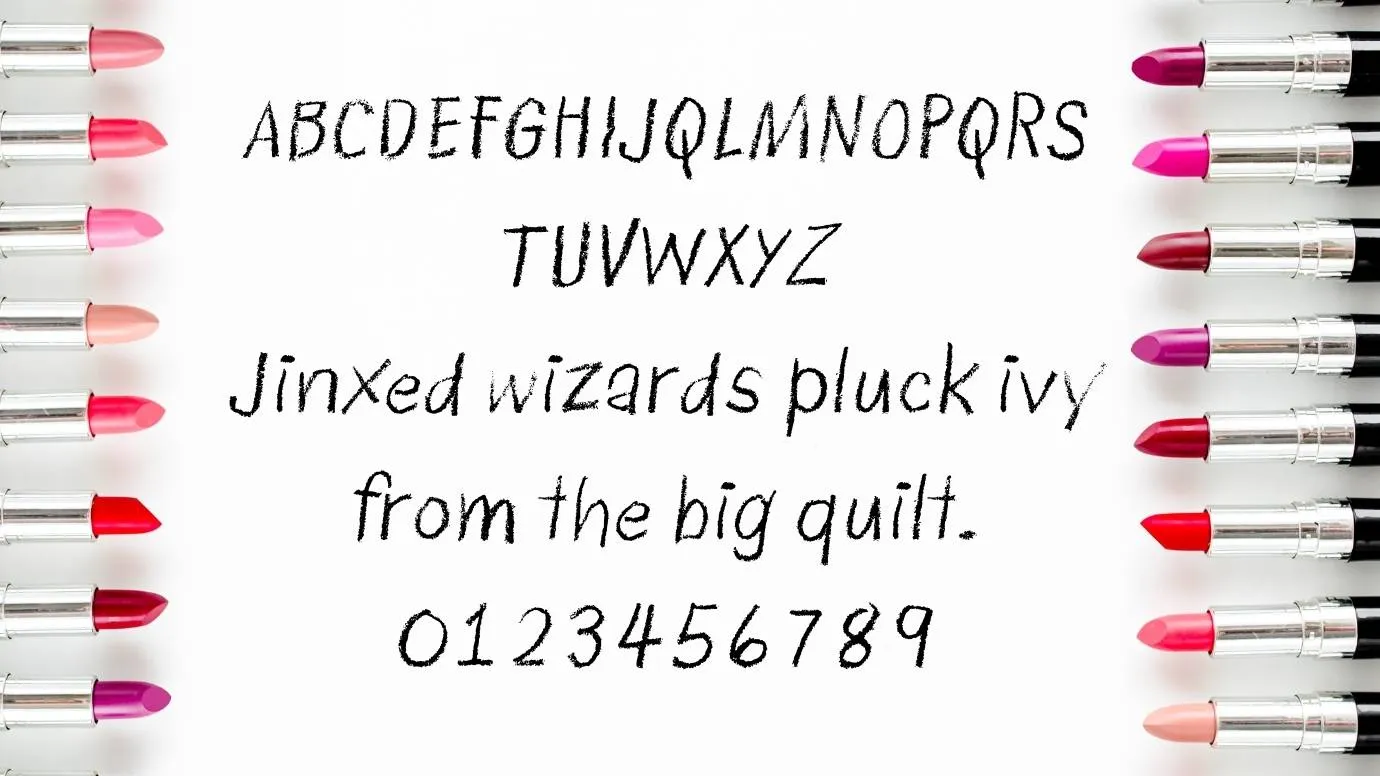
Introducing you to a very popular handwritten script typeface widely known as the Lipstick font. This amazing font was used in the logo of the very famous lipstick brands and cosmetics products. It is a very popular typeface and is known internationally. There are a lot of other fonts which were used in the logos of the cosmetics products but they cannot beat the class of this typeface. We will discuss the latest very amazing and prominent typeface. It was designed by a famous designer and expert of fonts Suthi Srisopha. The font family has only one style including the uppercase and lowercase letters and numbers.
Creator of Lipstick Font
This beautiful and amazing font is designed by Suthi Srisopha. And it was released by the famous foundry of fonts Typhoon Type.
This font comes in one regular style and advanced features as well as 80 unique glyphs and 266 interesting characters including Uppercase, Numerals.
Which is the best typeface to use with the lipstick font as a pair?
You can use Youth Font as a pair with the Lipstick font it will be surely a great combination.
Who created Lipstick font?
This beautiful and amazing font is designed by Suthi Srisopha. And it was released by the famous foundry of fonts Typhoon Type.
Is Lipstick font a script typeface?
Yes, this typeface belongs to the modern handwritten script typeface because its characteristics are very same as the handwritten-looking typeface families.
What is Lipstick used for?
You can use this typeface in the logos of the cosmetics brands this will be the best utilization of this typeface.